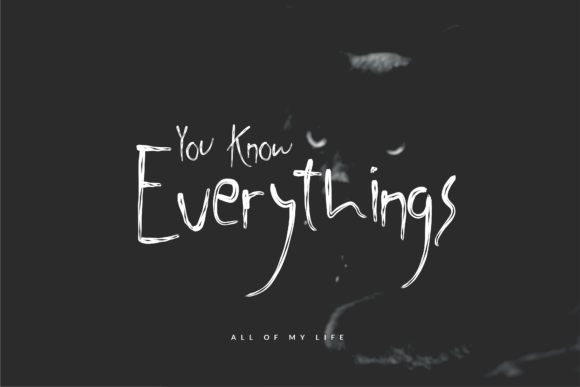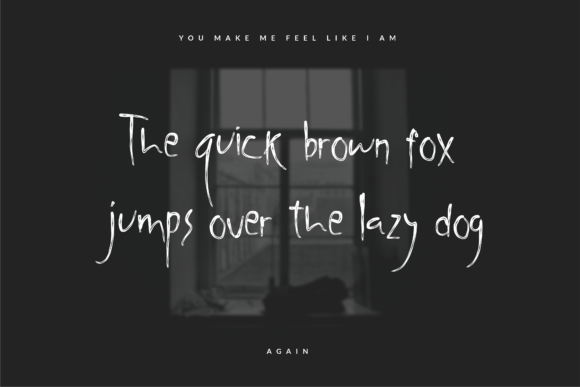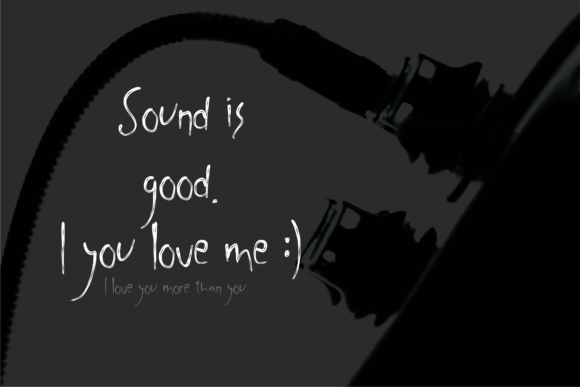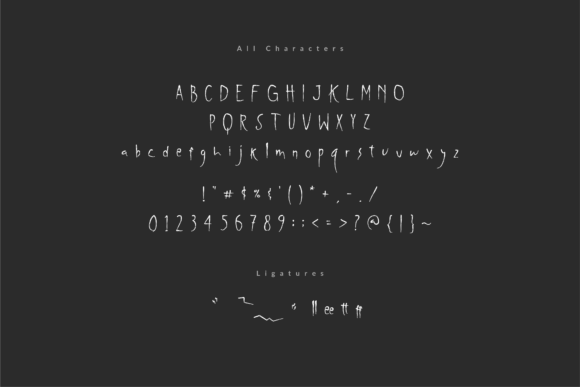
Shywill Seen Font
About Shywill Seen Font
Shywill Seen is a creepy and haunting handwritten font that is perfect for adding an eerie atmosphere to your Halloween designs. With its unique and unsettling letterforms, this font creates a spine-chilling effect that is sure to leave a lasting impression.
When used on a dark background, Shywill Seen intensifies its creepy appearance, adding a mysterious and sinister vibe to your designs. It is ideal for creating Halloween-themed posters, invitations, party decorations, and other spooky projects.
The twisted and distorted letterforms of Shywill Seen evoke a sense of unease and mystery. The uneven strokes and irregular shapes give the font a handcrafted and organic feel, enhancing its eerie charm. Each letter has its own peculiarities, adding to the overall unsettling nature of the font.
Shywill Seen is versatile in its application. It can be used for creating titles, headings, or any prominent text elements in your Halloween designs. Its impact is amplified when combined with other dark and spooky visuals, such as creepy illustrations, haunted house silhouettes, or ghostly images.
While Shywill Seen is primarily associated with Halloween designs, its distinct style can also be used in other contexts where a creepy or mysterious aesthetic is desired. It can be utilized for horror-themed book covers, movie titles, video game graphics, or any project that requires a touch of the macabre.
Whether you’re a designer working on a Halloween campaign or an enthusiast looking to add a spooky twist to your personal projects, Shywill Seen provides an excellent choice for creating a chilling and atmospheric atmosphere. Just remember to use it with caution, as its creepy appearance may be too intense for some audiences.
In summary, Shywill Seen is a creepy and haunting handwritten font that is perfect for Halloween designs and other projects that require a dark and mysterious aesthetic. Its unique letterforms and unsettling appearance will give your creations a spine-chilling effect, leaving a lasting impression on your audience.